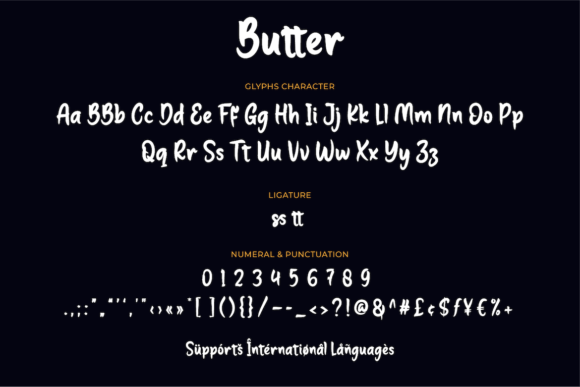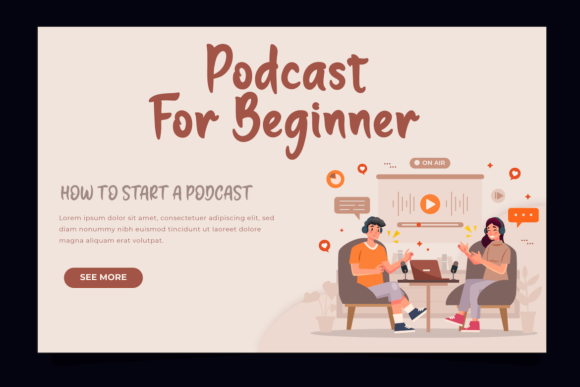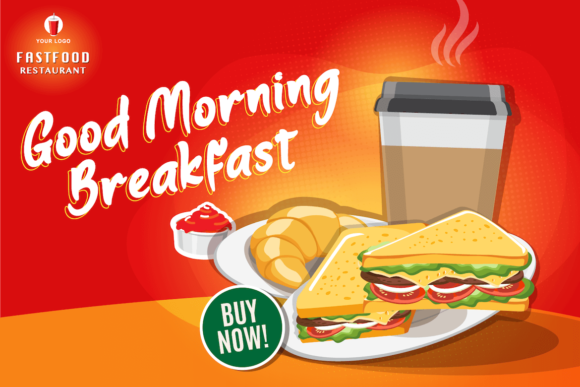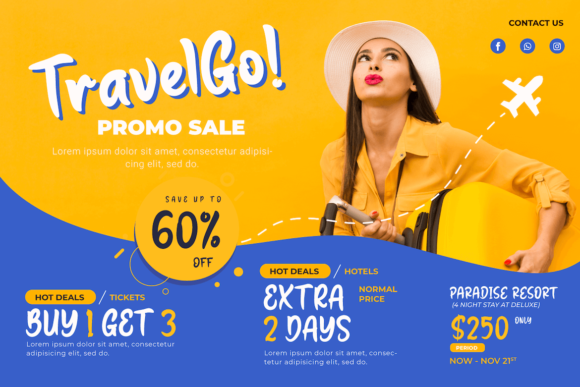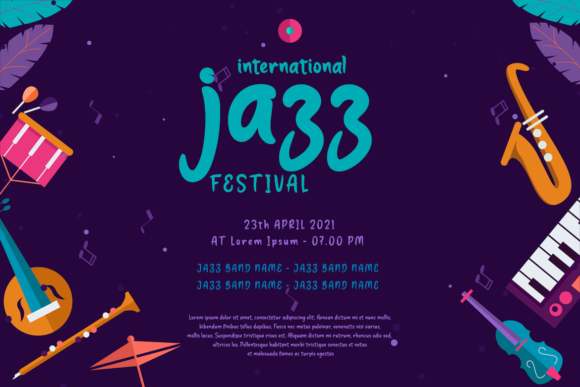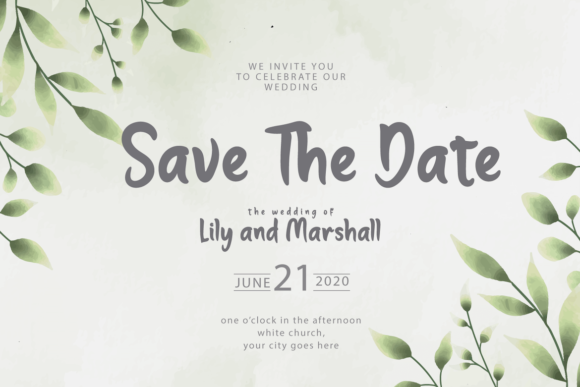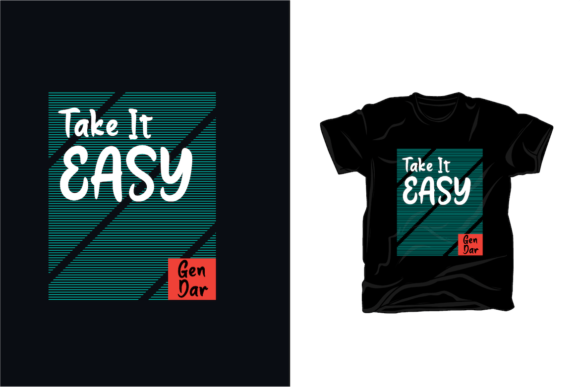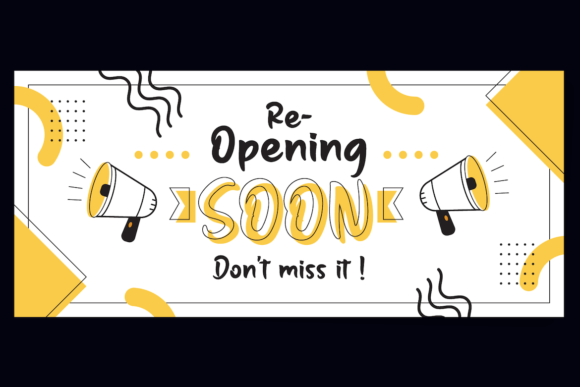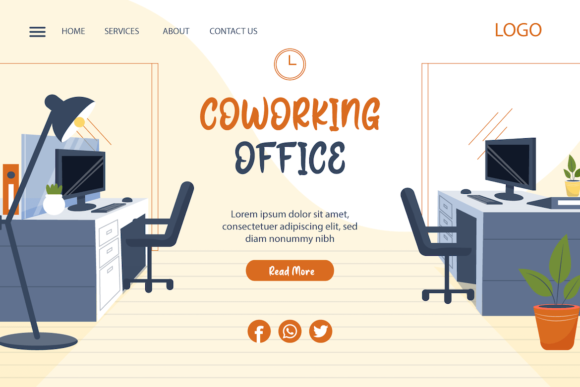
Butter Font
About Butter Font
Butter is a cool and stylish paint brushed handwritten font. Whether you’re using it for crafting, digital designing, presentations or greeting cards making, it’s perfect!